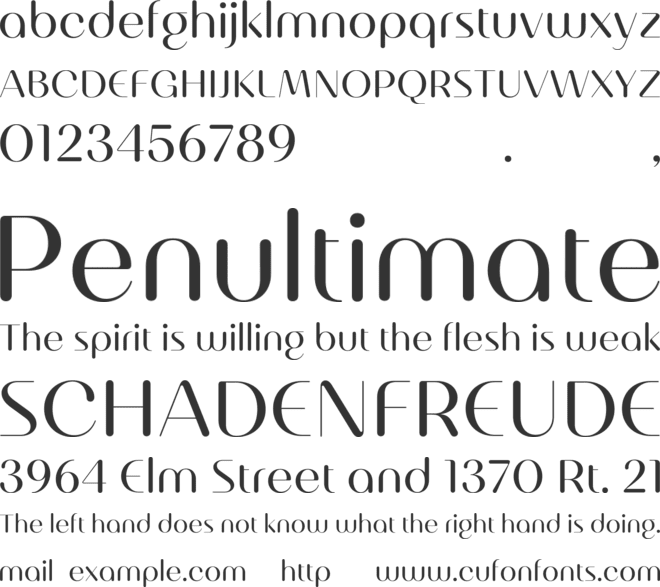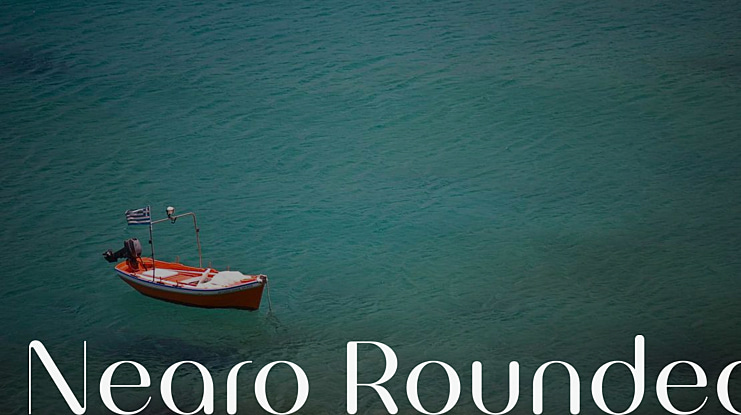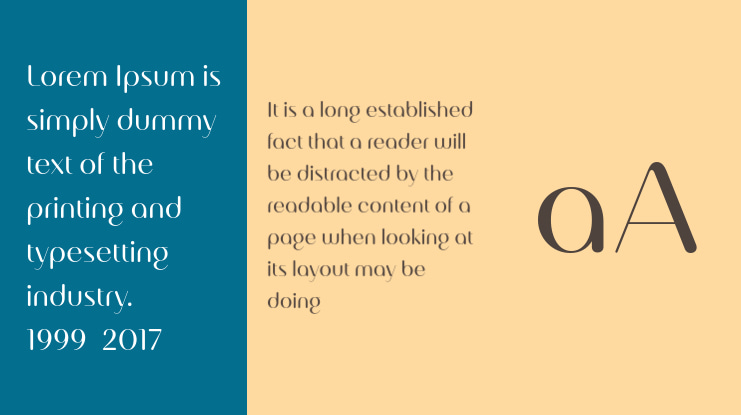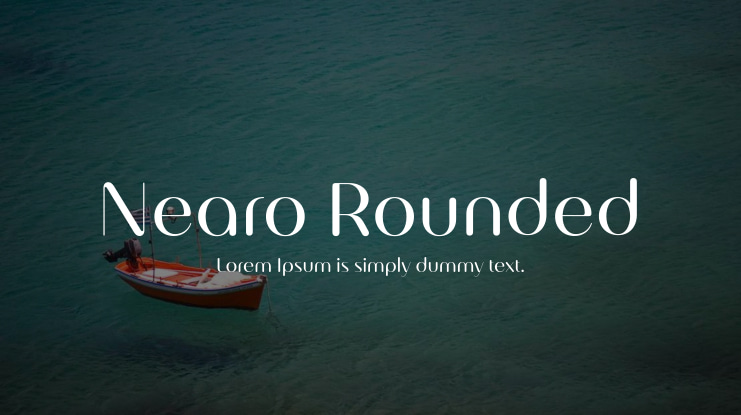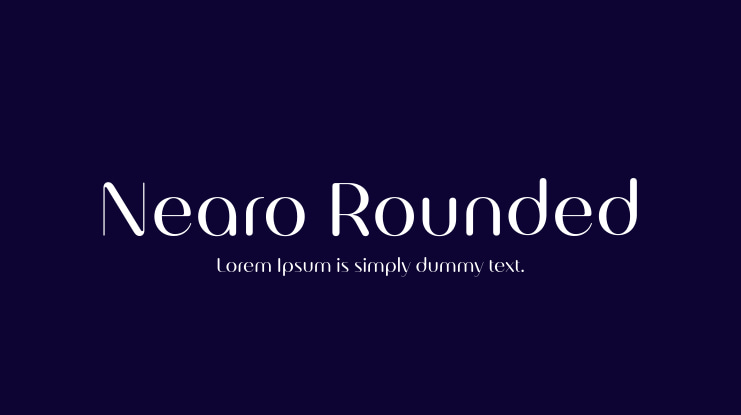
Nearo Rounded Font Family
Yusuf Niki Syahroni
Nearo Rounded features five high-contrast font styles and thick and thin round shapes making this font unique.